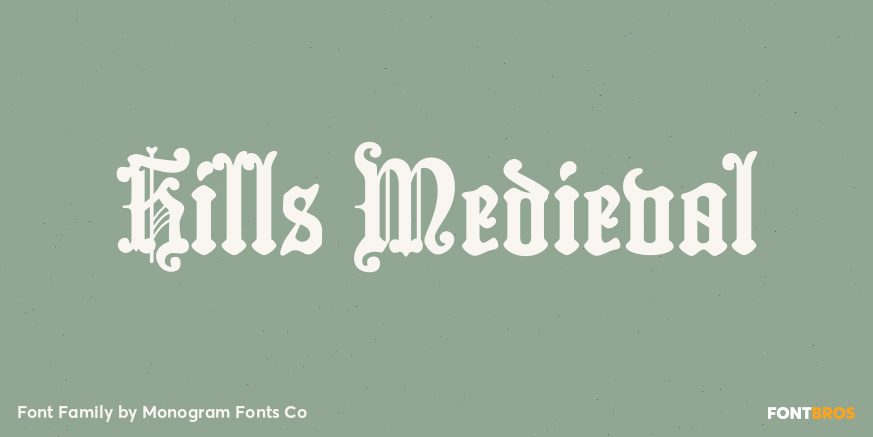
Hills Medieval
Hills Medieval was developed from a unique historical Blackletter type specimen in the 1882 Hills Manual of Social and Business Forms. From stylish and ornate capitals to a soft lowercase resembling bled ink, this period lettering style is a true eye-catcher.…